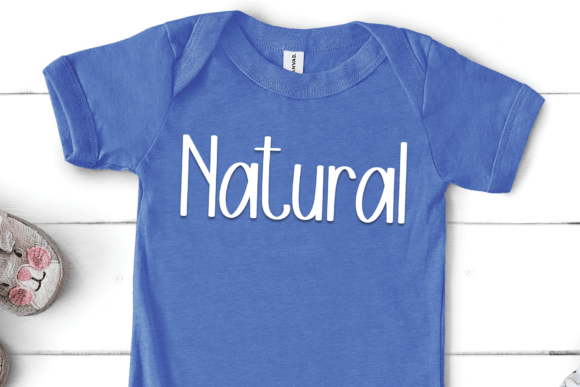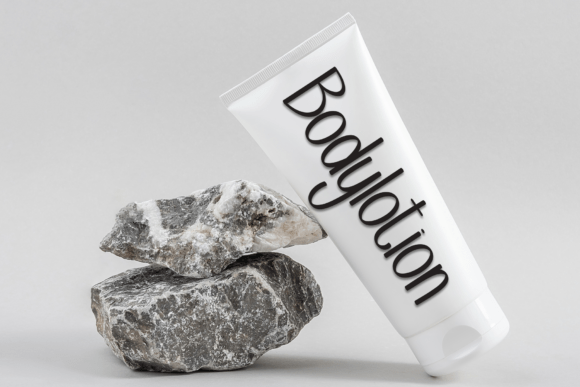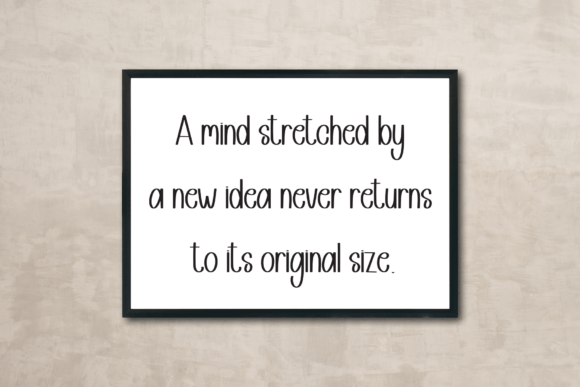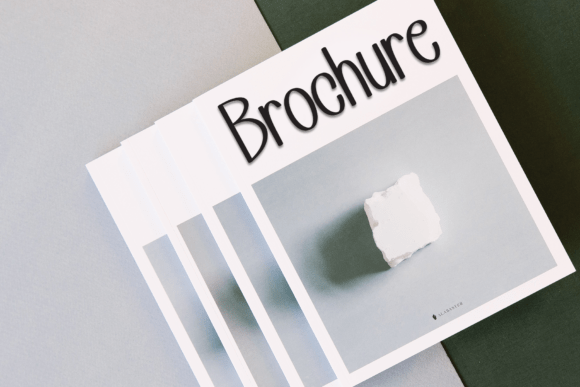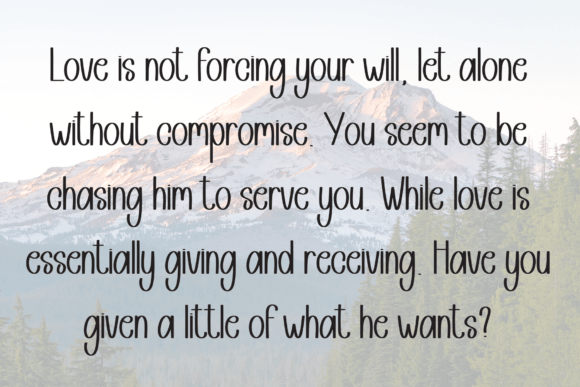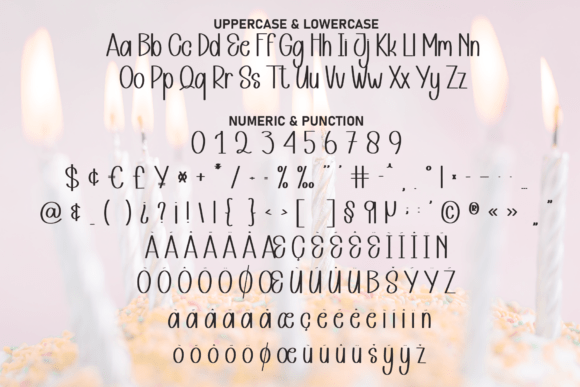
The Candle Birthday Font: A Warm and Inviting Addition to Your Design Toolkit
Have you ever been in the middle of a design project, pouring your heart and soul into it, only to realize that something’s missing? For me, that something was a font that could bring warmth and clarity to my creations. I was working on a branding project for a cozy candle shop, and I needed a font that could evoke the feeling of a crackling flame on a cold winter night. That’s when I discovered the Candle Birthday font, and it quickly became my go-to for adding a touch of warmth and personality to my designs.
A Personal Review: What I Love About Candle Birthday
So, what makes Candle Birthday so special? Here are a few things that I absolutely love about this font:
• ✨ Clean structure: The font has a clean and approachable structure that makes it perfect for a wide range of design projects, from branding and headlines to everyday designs.
• ✅ Balanced letterforms: The letterforms are carefully crafted to offer excellent readability and charm, making every message feel genuine and inviting.
• 💡 Versatility: Candle Birthday is a versatile font that can be used for both digital and print projects, making it a great addition to any design toolkit.
While Candle Birthday is an excellent font, there are a few small quirks to keep in mind:
• 🤔 Limited glyphs: While the font has a wide range of glyphs, it may not have every special character or symbol you need. Be sure to check the font’s capabilities before using it for a project.
• ⚠️ Not suitable for body text: While Candle Birthday is great for headlines and titles, it may not be the best choice for body text. Its clean structure and balanced letterforms make it perfect for short bursts of text, but it may not be as readable for longer blocks of text.
Candle Birthday is an OpenType font that offers a range of advanced features and glyphs. Here are a few tips for exploring these features:
• Stylistic alternates: Candle Birthday offers a range of stylistic alternates that allow you to customize the font to suit your design needs.
• Glyphs: The font includes a range of glyphs, including ligatures, fractions, and more.
The Backstory Behind Candle Birthday
Candle Birthday was designed with the goal of creating a font that could bring warmth and clarity to designs. The designer wanted to create a font that was both clean and approachable, with a touch of personality. The result is a font that’s perfect for a wide range of design projects, from branding and headlines to everyday designs.
What is Candle Birthday? Candle Birthday is a casual and neat display font designed to bring warmth and clarity to your projects.
What can I use Candle Birthday for? Candle Birthday is perfect for a wide range of design projects, including branding, headlines, and everyday designs.